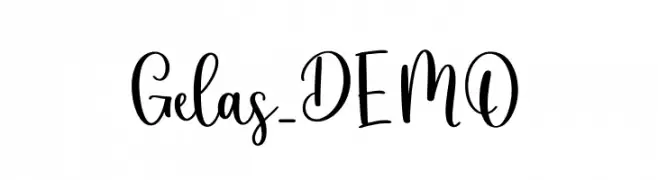
( Fonts by Måns Grebäck )
Elegant cursive script font.
( Fonts by Letterena Studios )
A casual, handwritten font with a playful and informal style.
( Fonts by Logan Benedict )
A bold, playful handwritten font with thick, rounded strokes.
( Fonts by Guillem Castro )
A playful, handwritten font with tall, narrow letters and a casual style.
( Fonts by Makashi )
A playful and elegant script font with a handwritten style.
A playful, handwritten font with bold, rounded characters.
A casual, handwritten font with smooth curves and consistent stroke width.
( Fonts by Shara Weber )
A playful, handwritten-style font with rounded, casual characters.